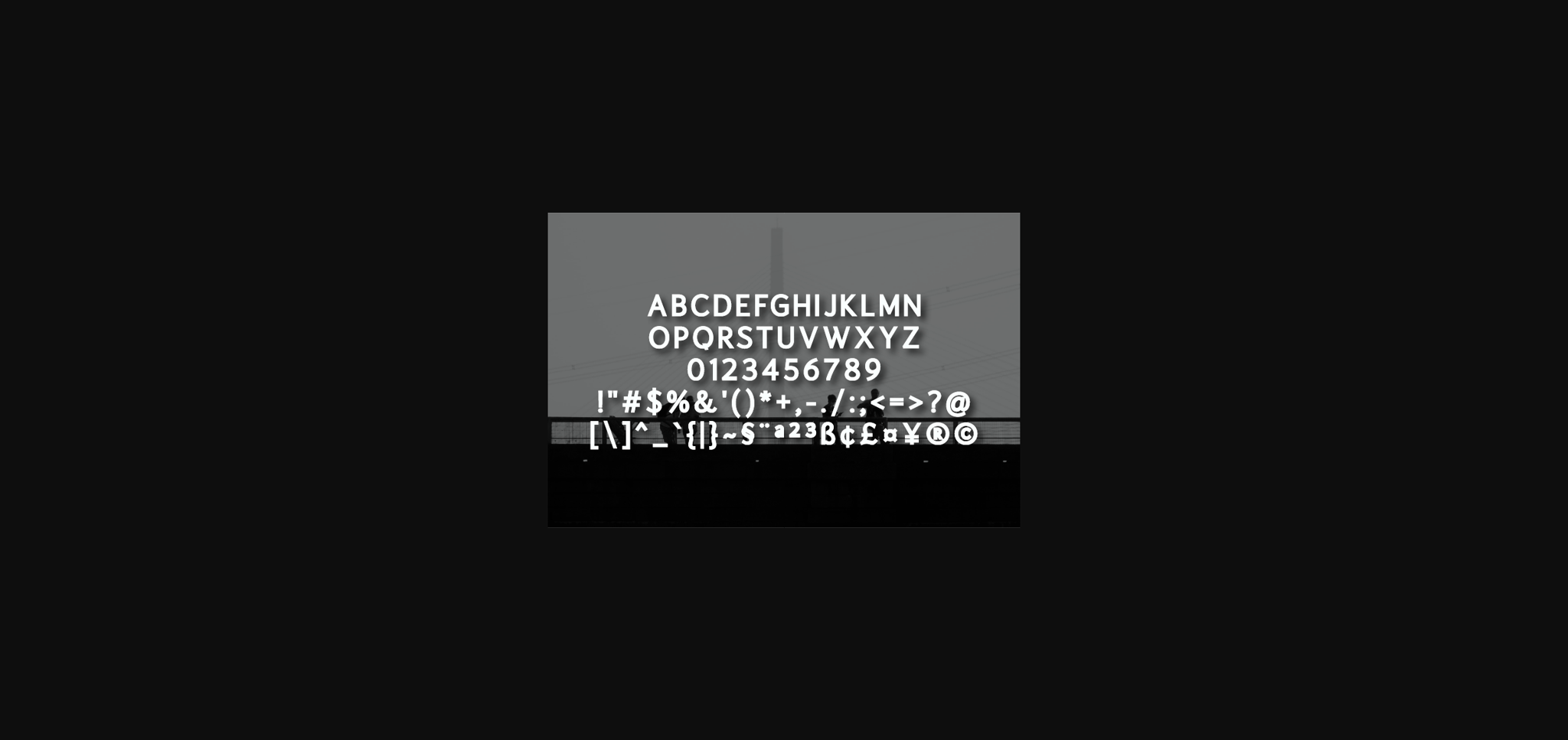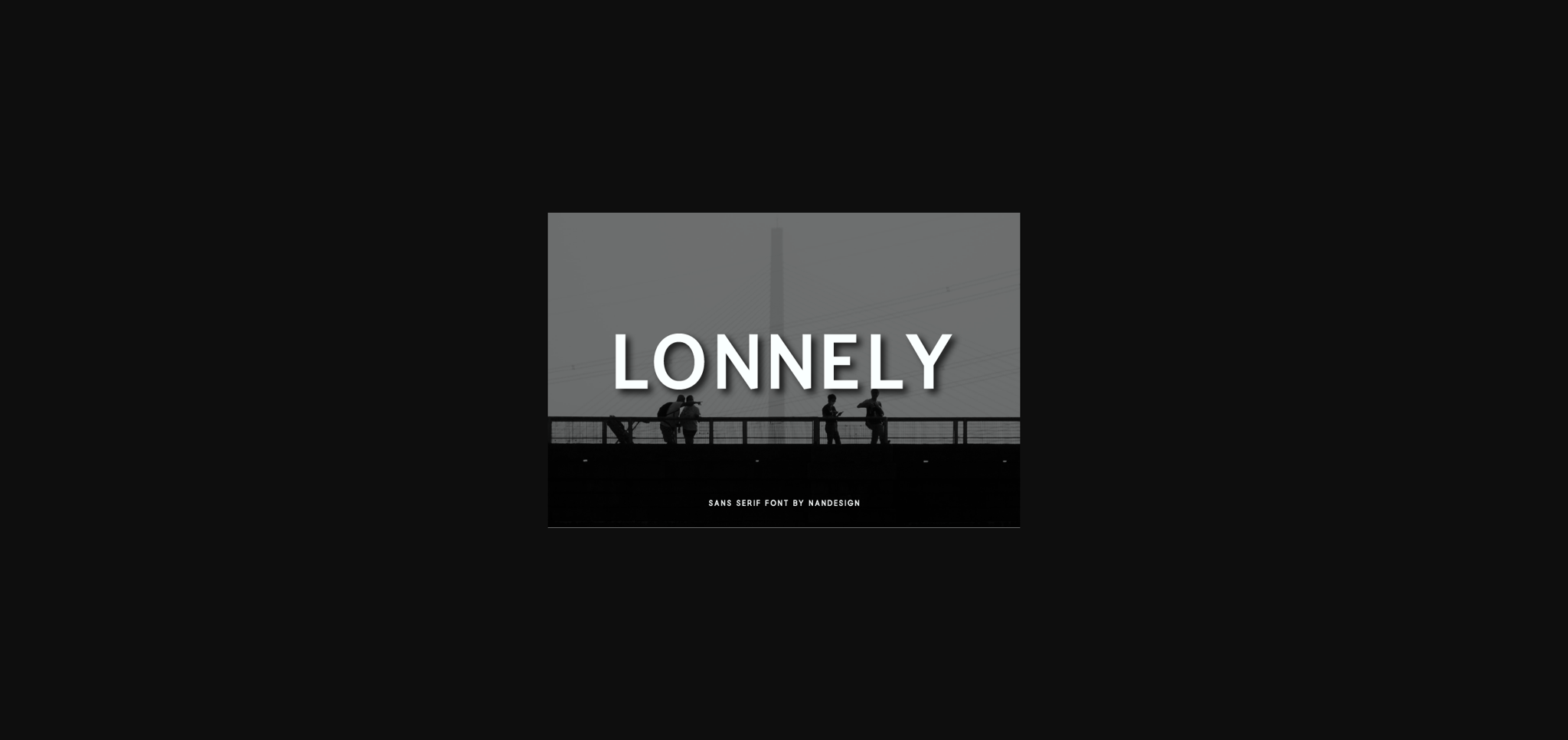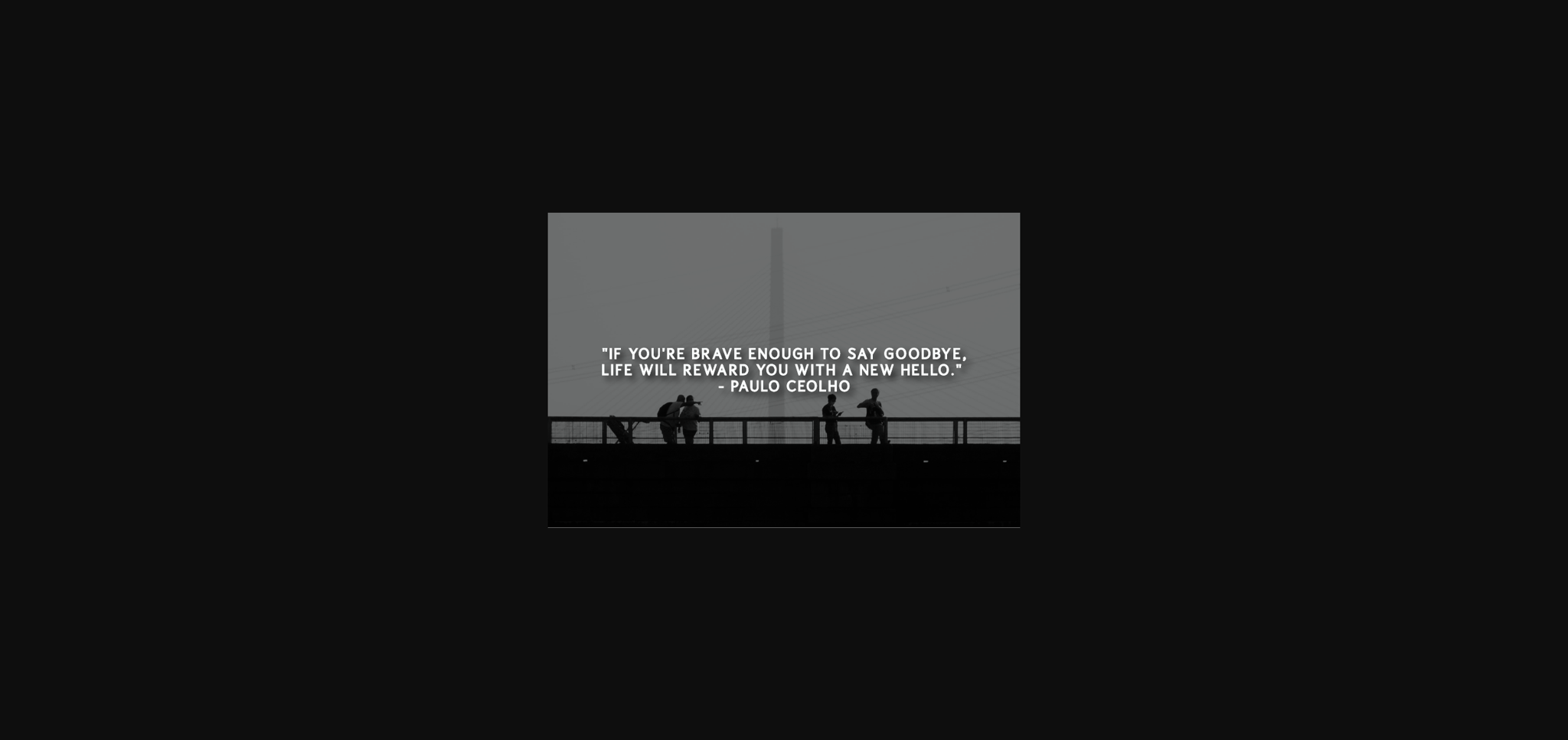
Lonnely Font
About Lonnely Font
Lonnely is a clean and neat sans serif font. Whether you’re using it for crafting, digital designing, presentations or greeting cards making, it’s perfect!